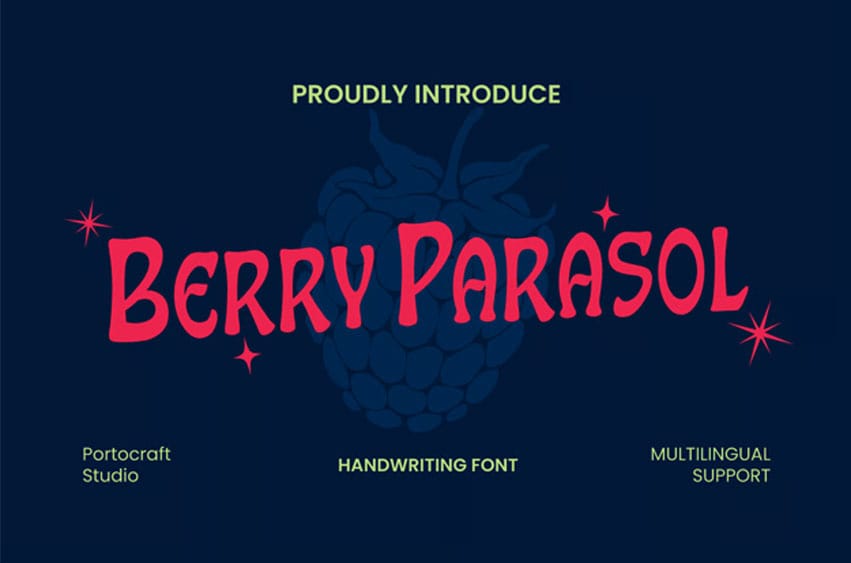
Berry Parasol Font is a fun and expressive handwriting font designed to bring warmth and personality to your creative projects. Its casual handwritten style feels natural, friendly, and playful, making it ideal for branding, packaging, posters, and social media designs.
With multilingual support and clean letterforms, Berry Parasol is easy to use and works well in both digital and print layouts. This font is perfect for designers looking to create cheerful, relaxed, and approachable visuals.
- Playful handwriting style
- Natural and friendly letterforms
- Easy to read and versatile